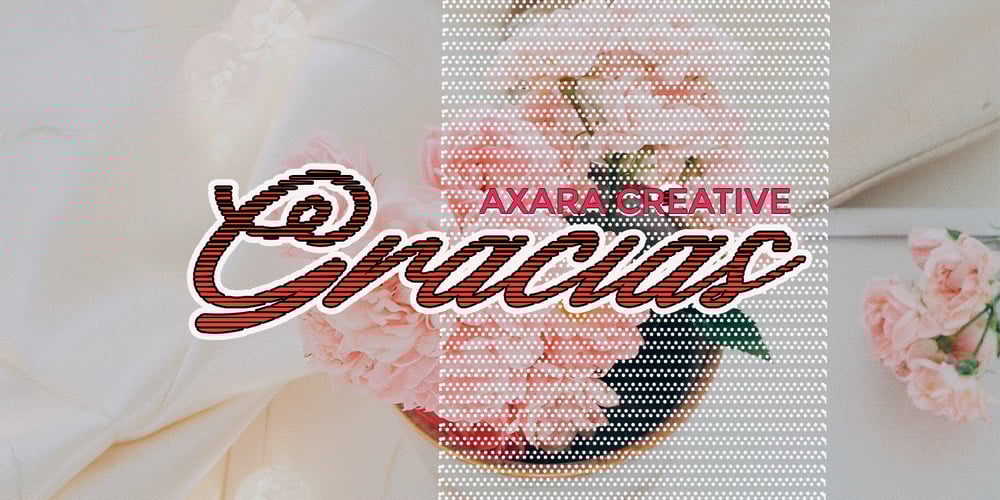
Lapendos Stripes Font Family was designed by Ayah Phoen and published by Axara Creative. Lapendos Stripes contains 1 styles and family package options. Introducing a new Lapendos Stripes. It comes with OpenType features such contextual alternates, stylistic sets, good for logotype, poster, badge, book cover, tshirt design, packaging and any more. This font is suitable for t-shirts, signage, logos, headlines, branding, packaging, etc. Accessible in the Adobe Illustrator, Adobe Photoshop, Adobe InDesign, even work on Microsoft Word. PUA Encoded Characters – Fully accessible without additional design software.